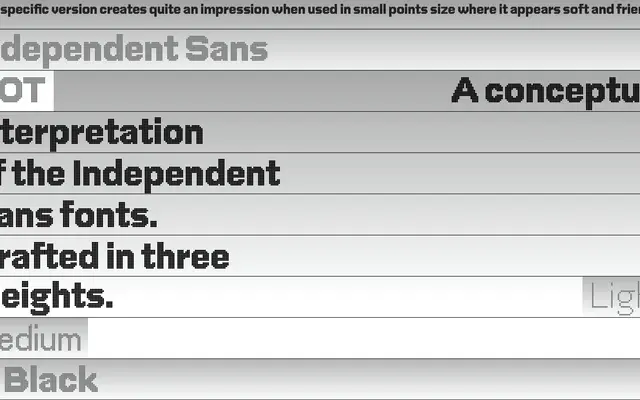
Independent DOT specimen from A2-Type
A dot matrix variant of Independent Sans, rendered across three weights using circular dot construction for display use.
Part of A2-Type's broader Independent family, DOT reinterprets the underlying grotesque letterforms as dot matrix constructions across Light, Medium and Black weights. The modular approach lends itself to display settings, signage and visual identities where a mechanical or retro-digital character is wanted. It sits alongside the stencil cuts in the Independent range as one of several decorative extensions from the core text and sans families.
Independent DOT is a dot matrix interpretation of the Independent Sans grotesque, with letterforms constructed from discrete circular dots across three weights. Its display character places it firmly outside conventional text use.